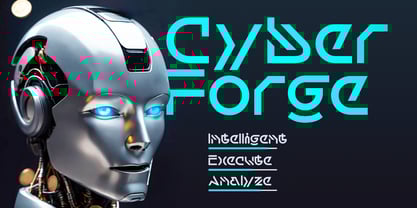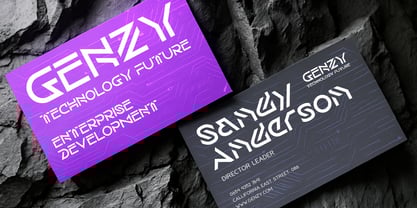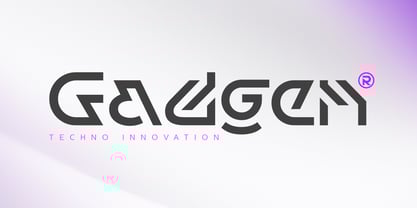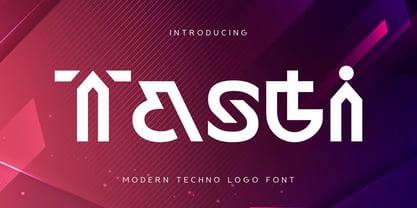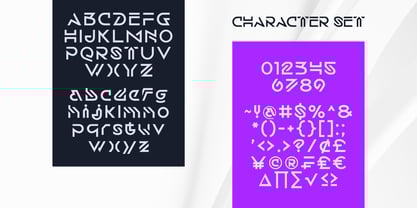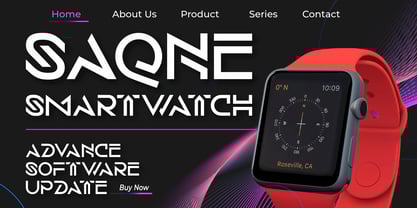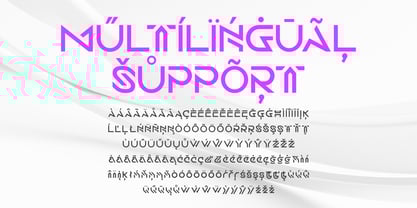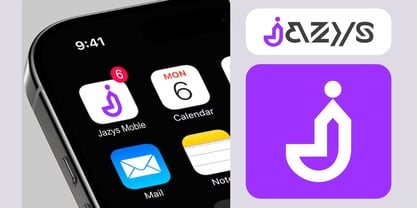
Tasti
Tasti is a Modern Techno typeface designed for standout branding in the tech world. With sharp geometric shapes and sleek, angular lines, Tasti captures the spirit of innovation—perfect for logos, digital products, and sci-fi inspired visuals.
Created with modern technology and cyber aesthetics in mind, Tasti is your go-to font for tech startups, esports teams, electronic music posters, and anything that needs a high-impact, next-gen look. Its minimalist yet striking design makes it ideal for UI/UX layouts, robotics themes, AI interfaces, and modern gaming titles.
Step into a new era of identity design with Tasti—a logo font built for the future.
Tasti – Modern Techno Logo Font Features:
• Techno-inspired letterforms with a strong, clean presence
• Perfect for futuristic logos, sci-fi branding, and tech design
• Includes punctuation, numerals, and symbols
• Supports both uppercase and lowercase characters
• OpenType features for enhanced design control
Multilingual support for over 30+ languages, including:
English, German, French, Spanish, Turkish, Polish, Dutch, and more
Bring your visual identity into the future with Tasti—the ultimate font for modern, tech-driven branding.
Design the future. Own the look.